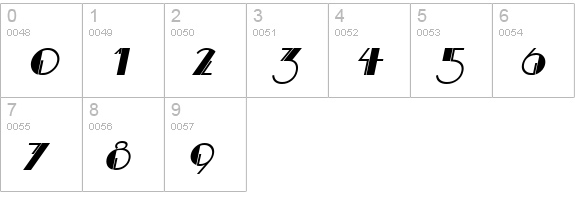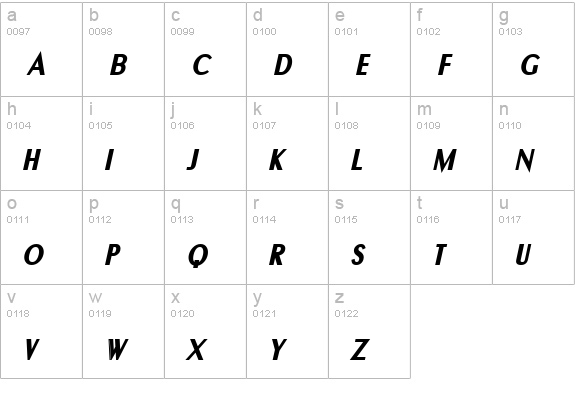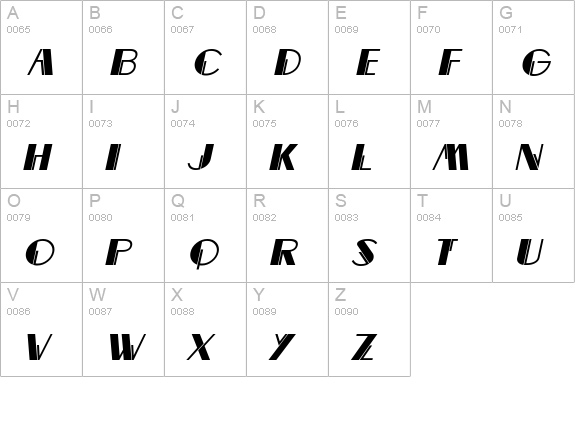
Banco BoldItalic Font Details
Introducing Banco BoldItalic font, a striking and modern typeface that exudes confidence and sophistication. With its bold yet elegant design, Banco BoldItalic is perfect for making a statement in headlines, titles, and branding materials. The sleek italicized style adds a touch of flair and uniqueness to any project, making it stand out from the crowd. What's even better is that Banco BoldItalic is available for free download at FontsMarket.com. This means you can easily access this sleek and professional font to elevate your designs without any cost. Don't miss out on the opportunity to enhance your projects with the bold and stylish Banco BoldItalic font, now conveniently available for free at FontsMarket.com.